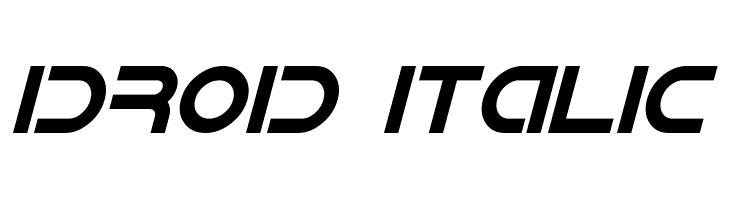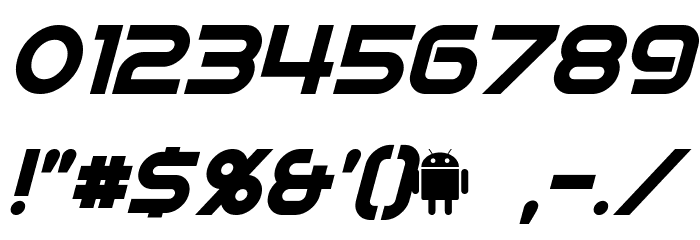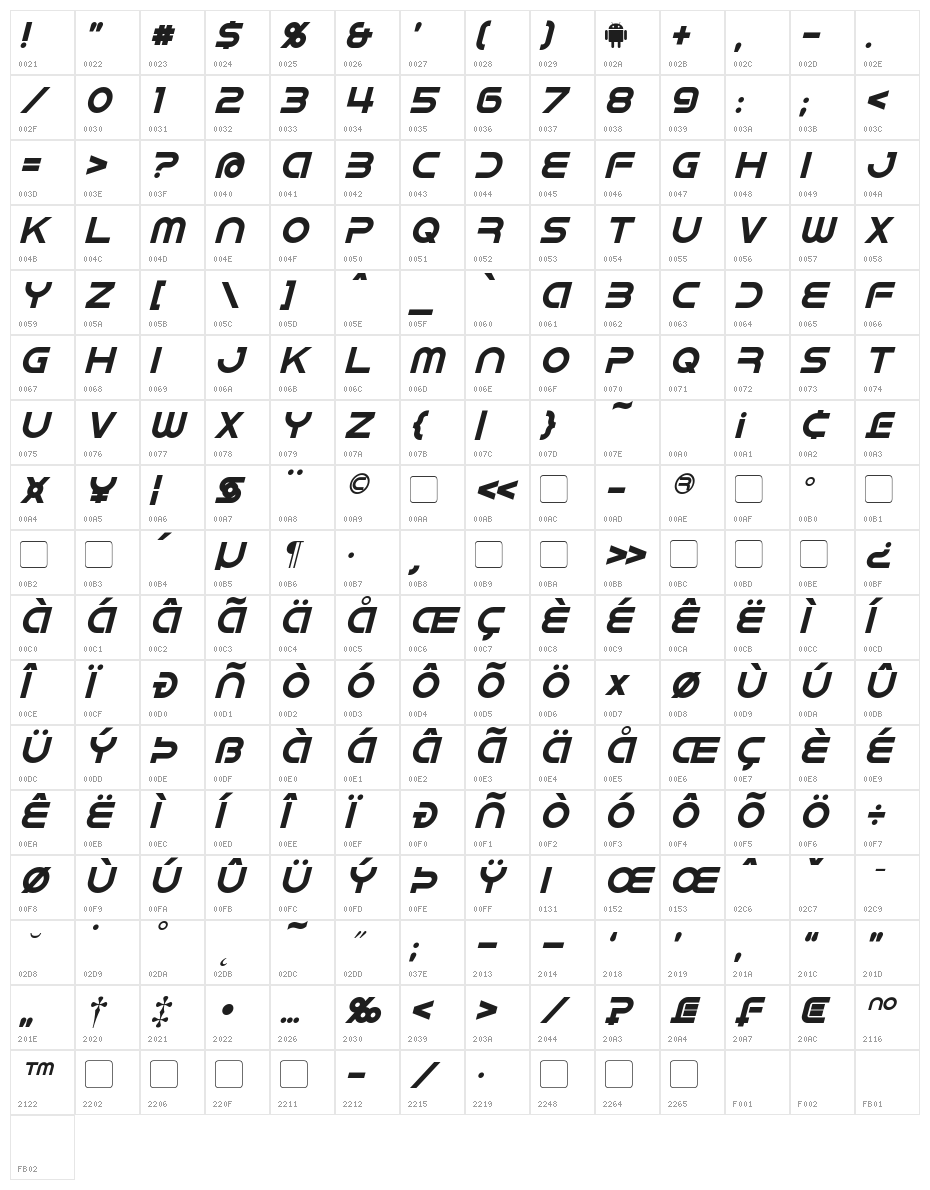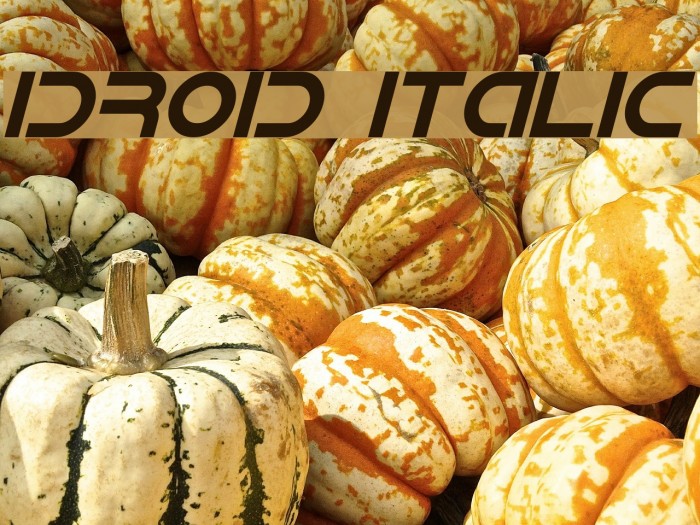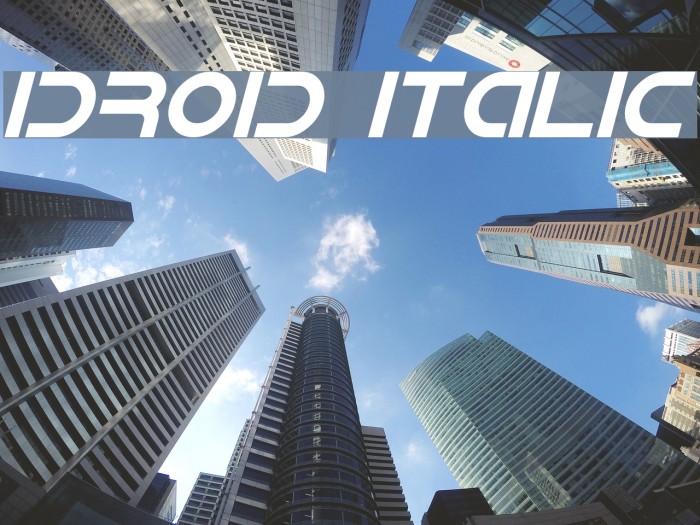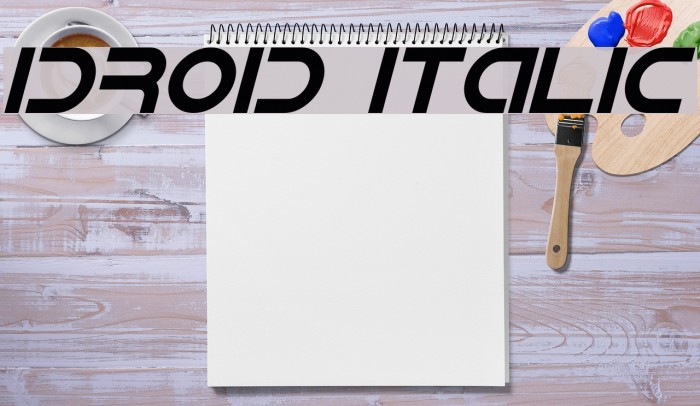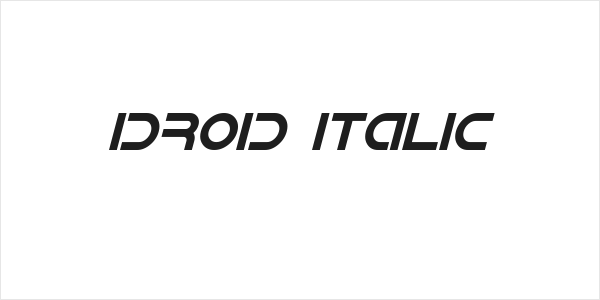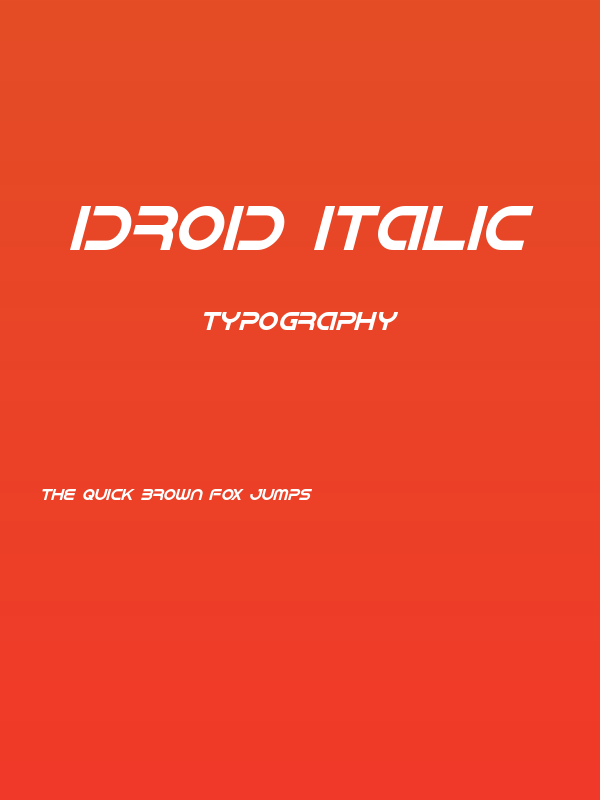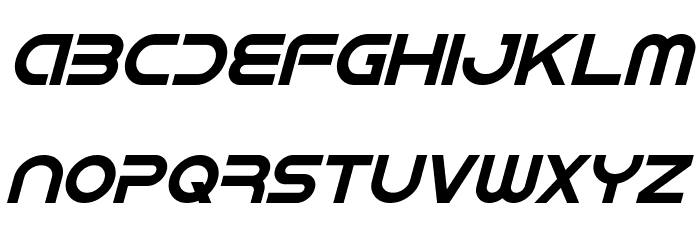
IDroid Italic Font
IDroid Italic Description
This font features a futuristic and sleek design with a distinct italic slant, giving it a dynamic and forward-moving appearance. The characters are bold and slightly condensed, with a consistent stroke width that provides a modern and streamlined look. The uppercase and lowercase letters maintain a cohesive style, with rounded edges and geometric shapes that enhance its contemporary feel. The numerals and special characters are designed to match the overall aesthetic, ensuring uniformity across all glyphs. This font is ideal for projects that require a tech-savvy or innovative touch.
| Use Case | Headlines, Logos, Tech interfaces |
| Proposed Projects | Ideal for tech branding, sci-fi posters, video game interfaces, and innovative product packaging. |